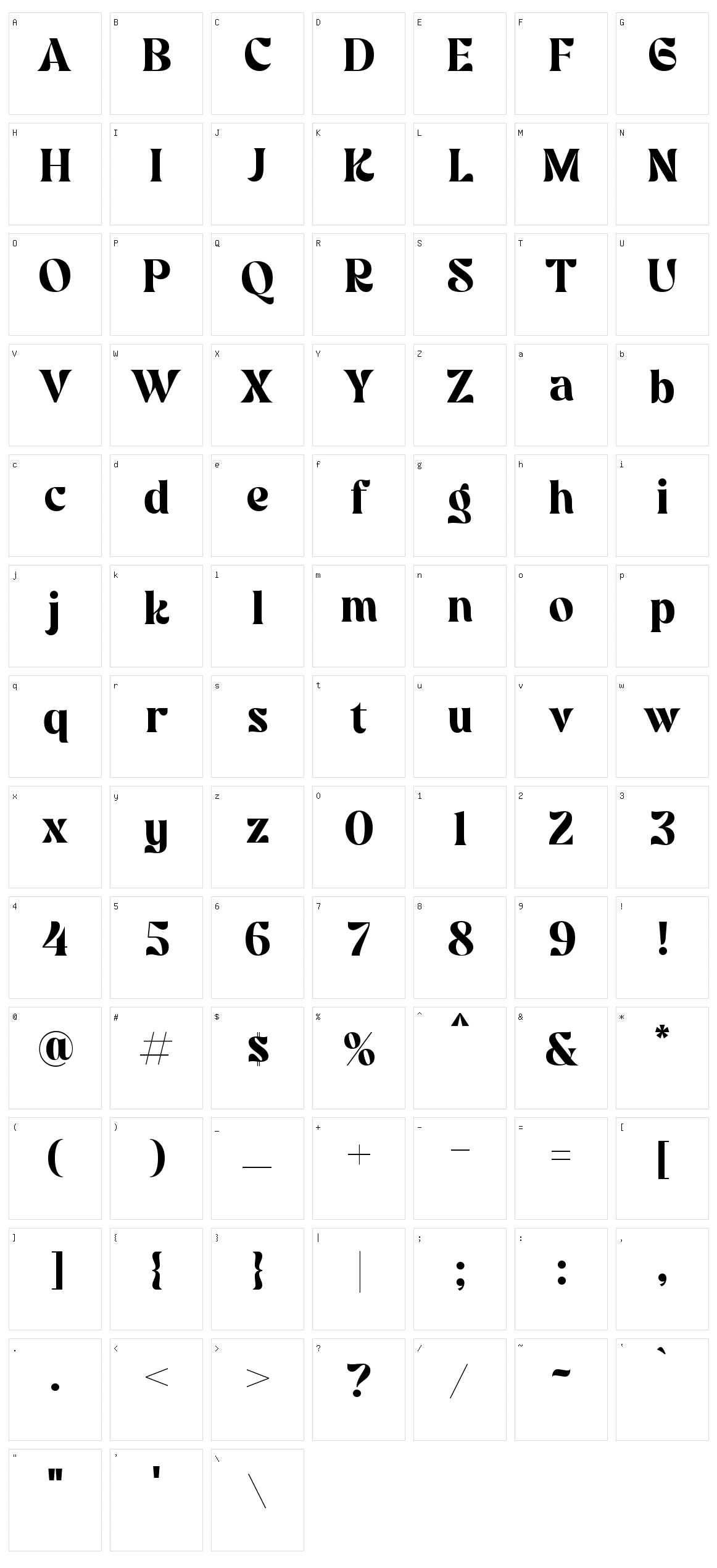
The free font Sableklish is carefully designed by Moka Type Studio, showcasing a thoughtful balance of creativity and usability and falls under the Serif font style. When you download the ZIP file, it contains only 26.52 KB of font files, making it lightweight and quick to download. Please review the license details below to understand permitted usage and distribution rights. If license information is not available, we recommend using this font for personal projects only or contacting the author directly for commercial usage permissions.